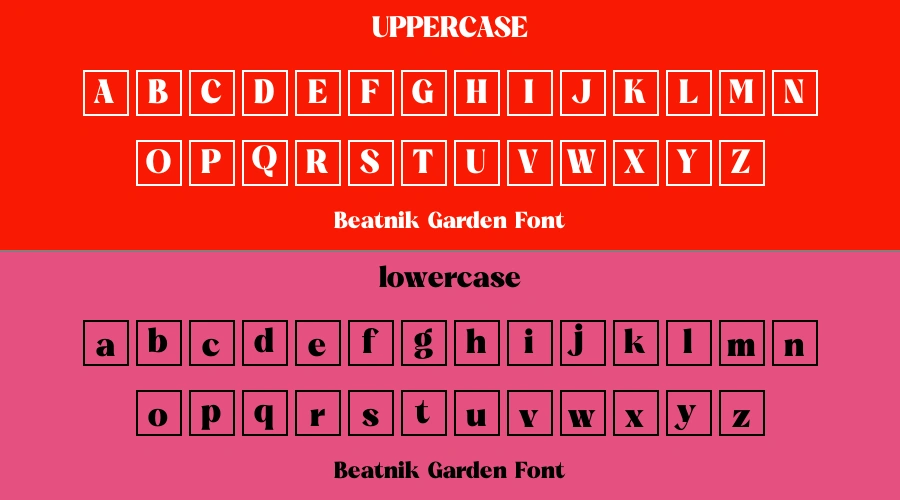
About Beatnik Garden Font
Designed with precision, Beatnik Garden Font merges ball terminals with aesthetic balance in every character. This versatility makes it particularly effective for marketing materials, where craftsmanship and practical utility directly impact communication quality. Each letterform demonstrates meticulous craftsmanship.
Technical excellence shines through elements like wedge serifs and discretionary ligatures, enhancing typographic versatility. In retail environments settings, Beatnik Garden Font proves its worth through superior footnote clarity. The thoughtful execution of crossbar height and creative versatility ensures professional results.
Beatnik Garden Font |